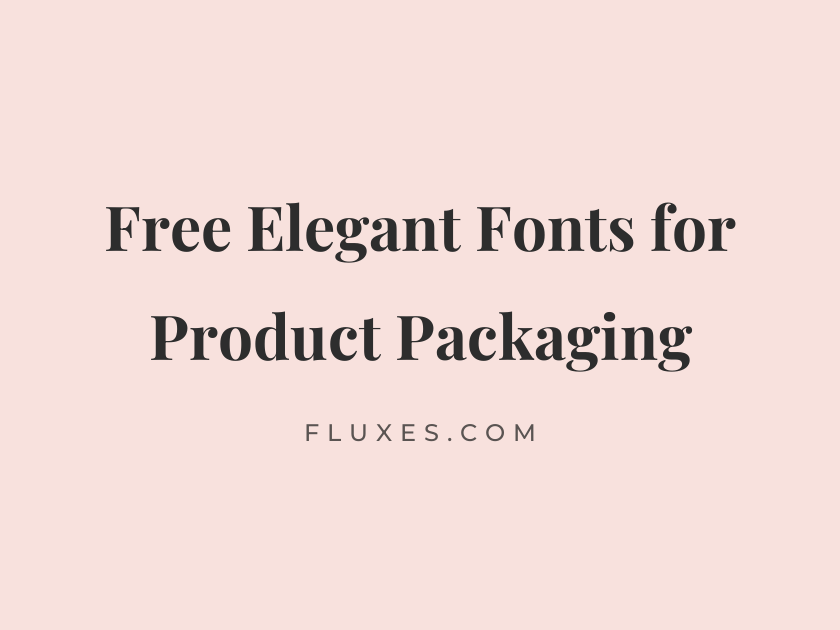
65 Best Free Elegant Fonts for Product Packaging
Elegant packaging design lives or dies on typography. A label or box only gets a second or two to communicate quality, and the right typeface can suggest heritage, restraint, and craft before a shopper reads a single word of copy. The good news for small studios and independent brands is that some of the most refined typefaces available today, the kind you would expect to pay a foundry for, are free through Google Fonts and fully licensed for commercial packaging work.
The fonts gathered here span classic high-contrast serifs suited to wine and spirits, warm old-style faces for artisan food and apothecary labels, calligraphic scripts for perfume and confectionery, and pared-back sans-serifs for the kind of minimalist skincare or beauty packaging that lets the product speak. Each one has a distinct character, so pay attention to how the letterforms feel against your product category rather than reaching for whatever looks “fanciest” on screen.
Playfair Display is the workhorse of elegant packaging design, and for good reason. Its dramatic swing from thick to thin strokes gives wine labels, perfume boxes, and cosmetic packaging an immediate sense of editorial polish.
It reads best at larger sizes, where that contrast can breathe; pushed too small on an ingredient list it starts to feel fragile. Pair it with a plain sans-serif for body copy and it instantly looks like a considered brand system rather than a default choice.
Playfair Display SC
This small-caps companion to Playfair Display trades the lowercase entirely for evenly weighted capitals, which makes it ideal for a short brand name stamped across a cap or seal. It carries the same high-contrast drama but with the formality of an engraved plaque.
Cormorant Garamond takes the proportions of an old-style Garamond and stretches them tighter and taller, giving it a jewelry-catalog delicacy. It is a favorite for premium skincare and fragrance packaging where the brief calls for something refined rather than loud.
The hairlines are genuinely thin, so reserve it for headlines and product names rather than fine print, where it can blur on uncoated stock.
The wider Cormorant family gives you a bit more sturdiness than Cormorant Garamond while keeping that same aristocratic thinness in its hairlines. It suits candle labels and boutique stationery boxes that want elegance without quite as much fragility.
Cormorant SC
A small-caps cut of the Cormorant family, useful when a brand name needs to sit as a discreet, evenly spaced line beneath a larger logotype.
EB Garamond is a faithful digital revival of Claude Garamont’s sixteenth-century punches, and it brings genuine old-world credibility to anything positioned as heirloom, artisanal, or traditionally made. It has real warmth in the curves, unlike many geometric alternatives.
Because it was drawn for continuous reading, it holds up far better than most display serifs at the small sizes typical of ingredient panels and legal text on a box.
Libre Caslon Display
A chunky, confident take on Caslon built specifically for headline sizes. It has enough weight to hold its own on a bold, saturated label without losing its bookish, literary pedigree.
Libre Bodoni
Libre Bodoni softens the razor-sharp contrast of classic Bodoni cuts just enough to stay legible on packaging at moderate sizes. It gives fashion and beauty branding that fashion-magazine crispness without tipping into the fragility of a full Didone.
Nothing signals high fashion quite like a true Bodoni, and this variable revival is one of the most usable free versions around. The vertical stress and needle-thin hairlines look extraordinary on matte black cosmetic tubes and perfume cartons.
It is unapologetically a display face; keep it away from small print and let it do the one job it does brilliantly.
Prata is a slender transitional serif with a slightly Art Deco flourish in its terminals, giving it a period feel that suits spirits, cigars, and other slow-made products with a story to tell.
An understated serif with wide, calm letterforms that never shout. Marcellus works well as a secondary typeface beneath a more decorative logotype, holding taglines and descriptors with quiet confidence.
Marcellus SC
Always test your chosen combination at the real, physical size of the label or box. Fine hairlines that look beautiful on a monitor can disappear entirely once printed on foil, kraft paper, or a curved glass surface.